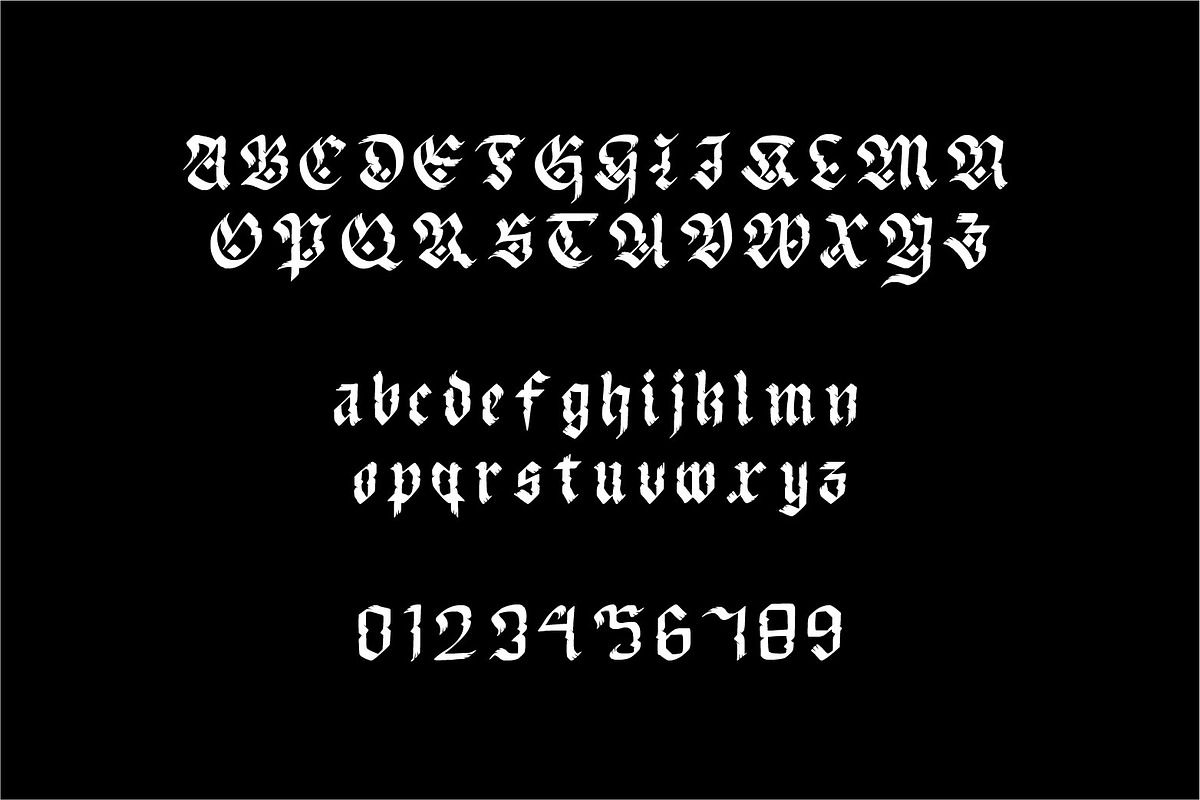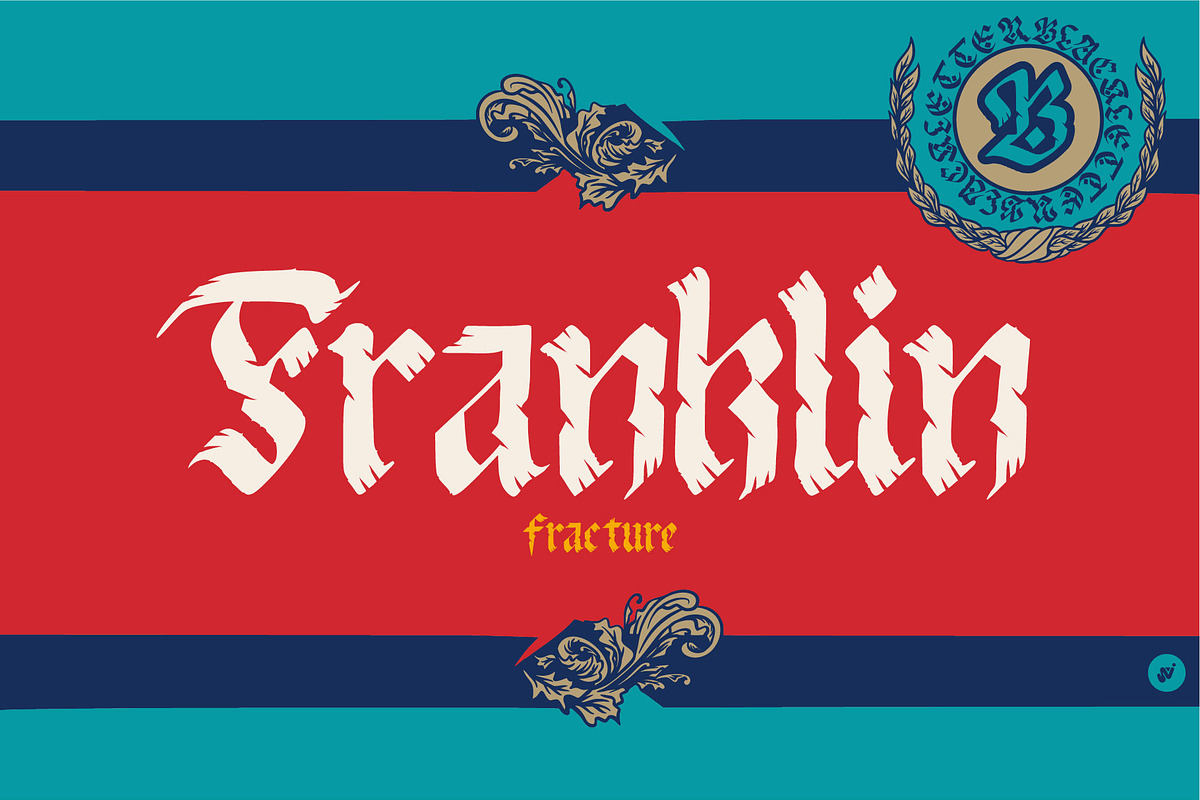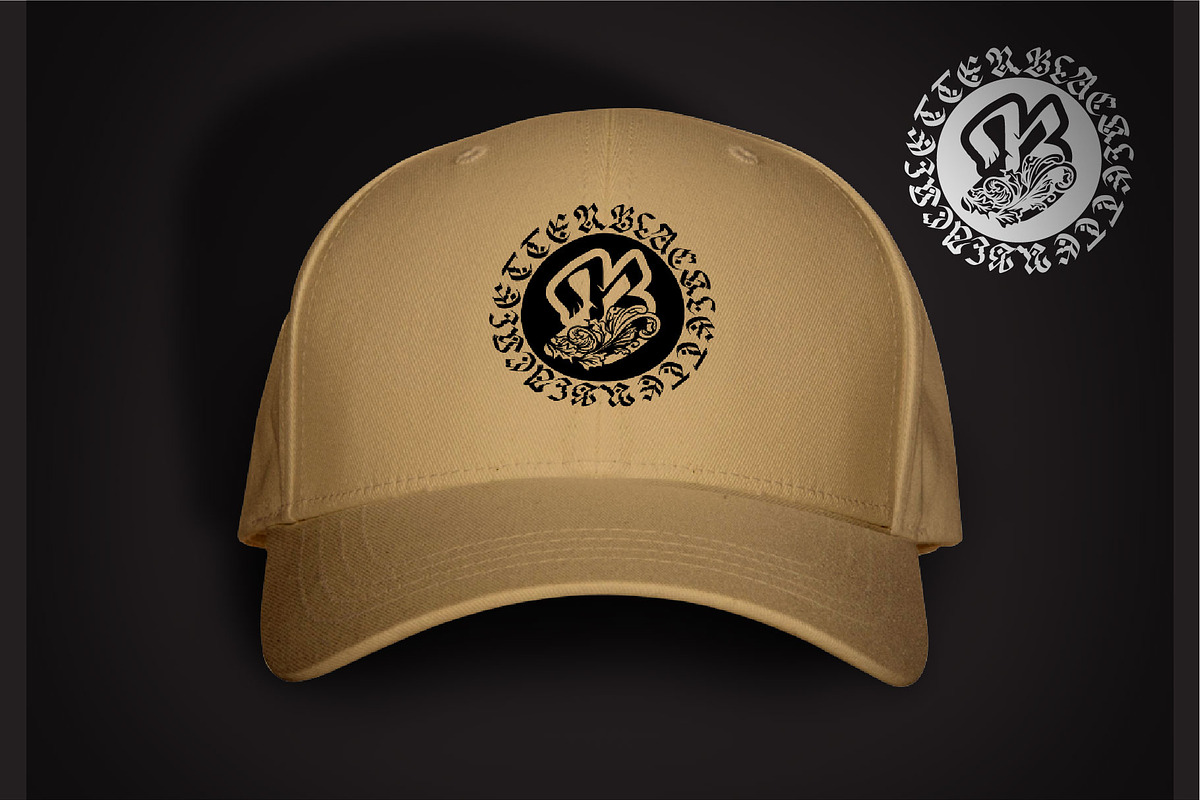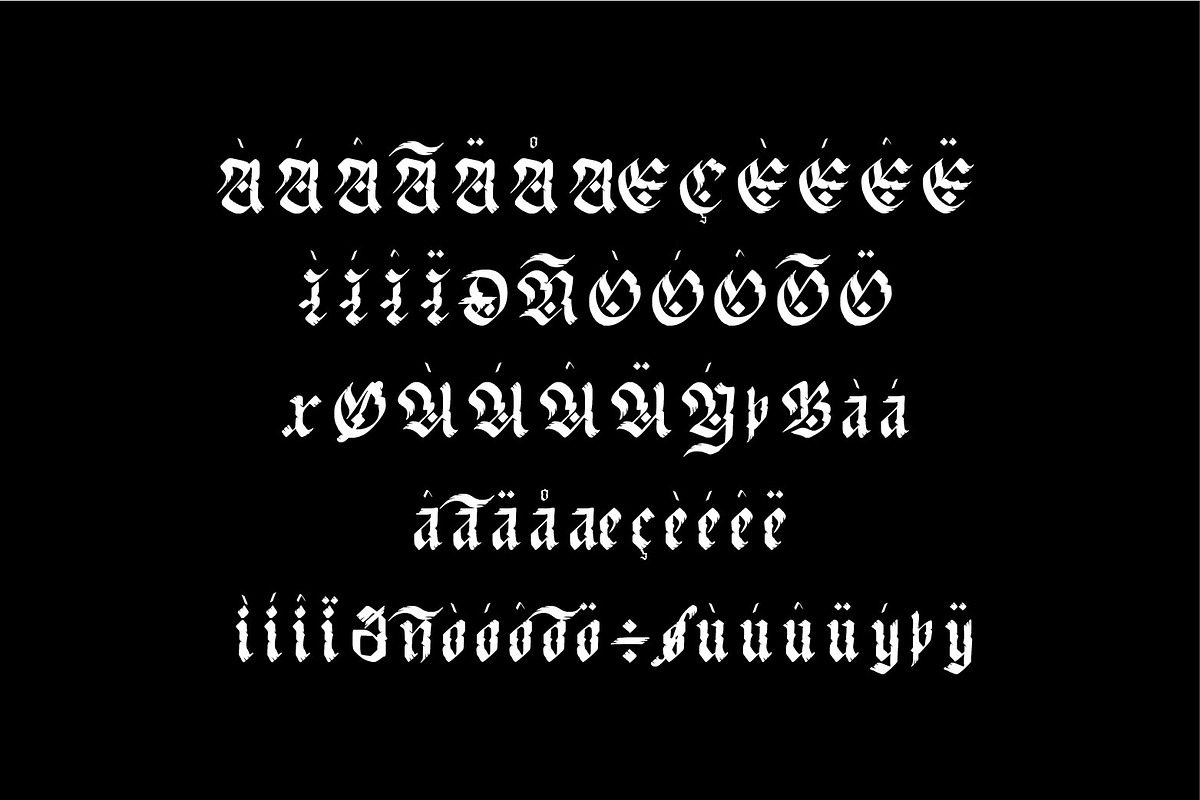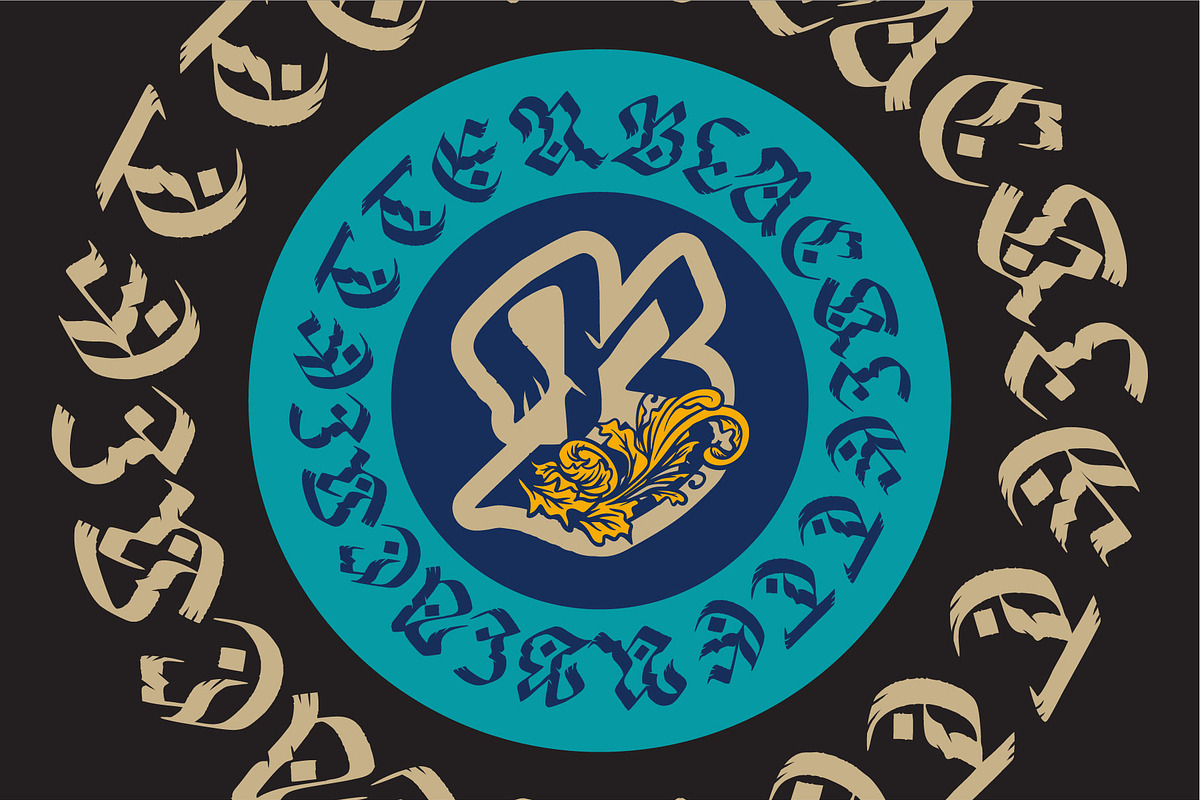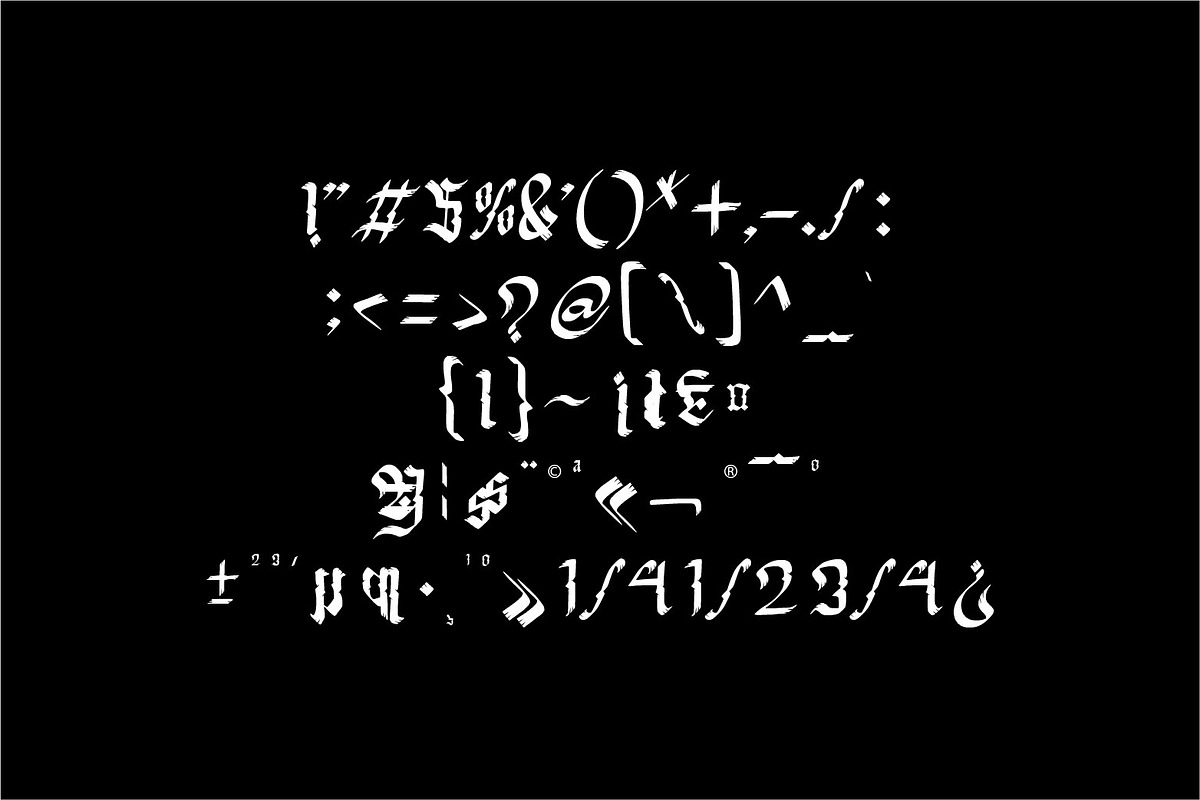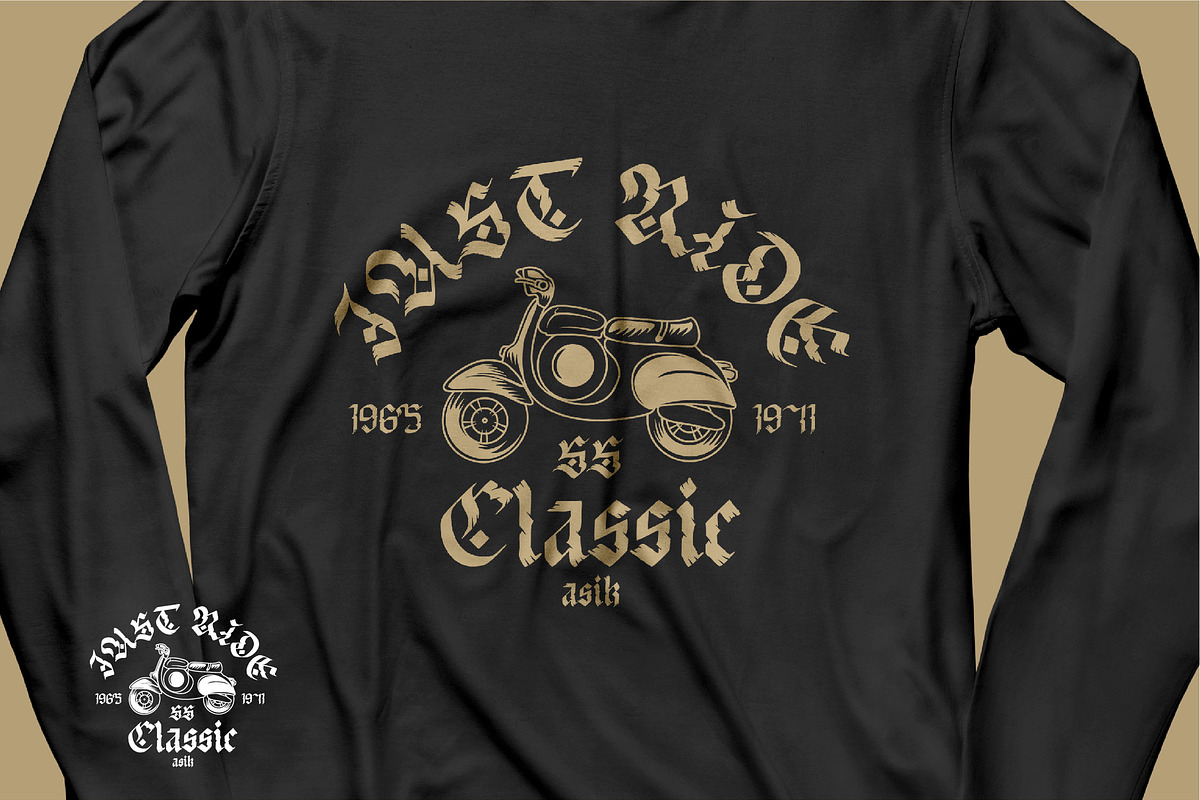
Franklin fracture - Blackletter
Something New, the fracture blackletter, has been designed with logo designers and typographers in mind. This display font is the perfect addition to your t-shirt, jacket, hat, design studio, ready for your next logo, barber shop, coffee shop label. Modern blend of fracture and blackletter with a touch or vintage